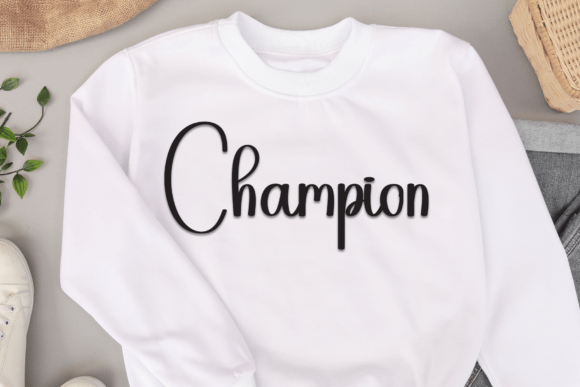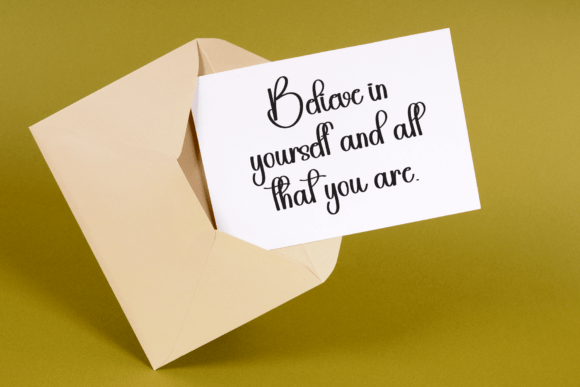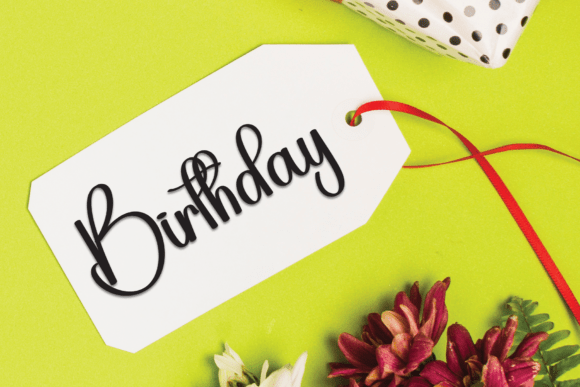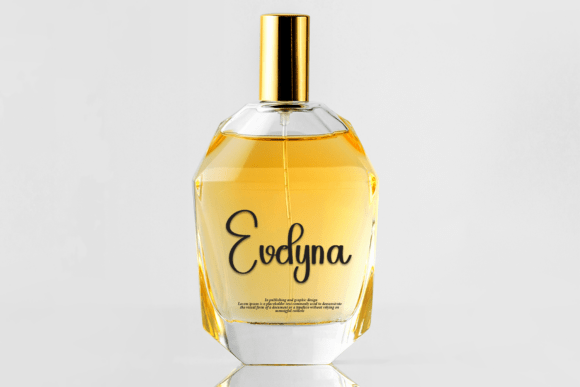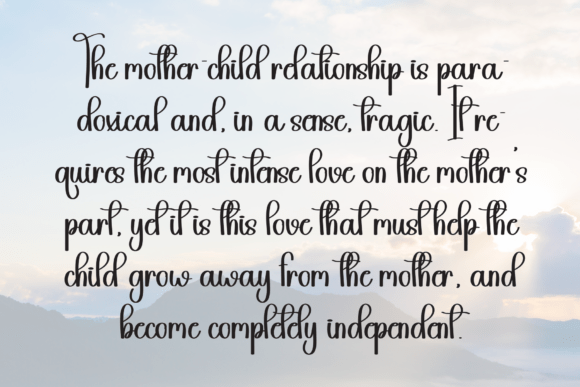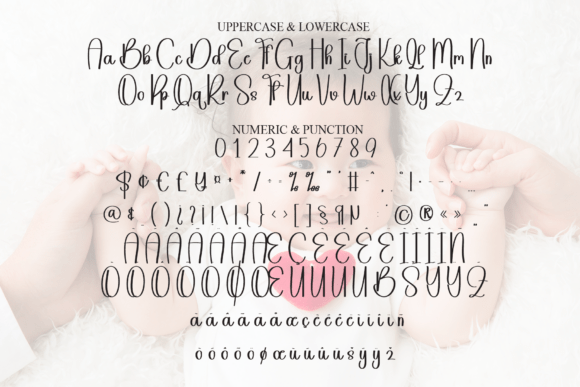
Babyday Font: Elevate Your Designs with Elegance and Modern Charm
In the world of typography, few fonts manage to strike a balance between elegance, modernity, and versatility. Babyday Font is one such exceptional typeface that has captured the hearts of designers and crafters alike. This stylish script font is not just a visual treat but a powerful tool for adding sophistication and personality to any design project.
The Essence of Babyday Font
Babyday Font is a masterpiece of modern calligraphy, blending the fluidity of hand-drawn scripts with the precision of digital typography. Its fluid strokes and graceful curves give it a natural, effortless look that is both captivating and charming. Each letterform is carefully crafted and balanced to ensure that the font exudes a sense of elegance and refinement.
What sets Babyday apart is its unique blend of traditional calligraphic elements with a contemporary edge. This fusion makes it an ideal choice for designers looking to add a touch of sophistication and modernity to their work. Whether you’re creating logos, invitations, packaging, or social media graphics, Babyday Font is sure to elevate your designs to new heights.
One of the key advantages of Babyday Font is its incredible versatility. Its natural flow and refined details make it suitable for a wide range of design applications. Here are just a few examples of how you can use Babyday to enhance your projects:
- Logos: Create memorable and stylish logos that stand out from the crowd. Babyday’s unique charm and elegance make it perfect for branding and identity designs.
- Invitations: Add a touch of sophistication and glamour to your invitations, whether it’s for a wedding, birthday party, or corporate event.
- Packaging: Elevate your product packaging with Babyday’s refined and elegant look. It’s an excellent way to make your products stand out on store shelves.
- Social Media Graphics: Create eye-catching social media graphics that reflect your brand’s personality and style. Babyday Font is perfect for crafting engaging and shareable content.
Why Choose Babyday Font?
With so many fonts available, why should you choose Babyday for your design projects? Here are a few compelling reasons:
- Elegance: Babyday Font exudes elegance and sophistication, making it perfect for designs that require a touch of refinement.
- Modernity: Its contemporary edge ensures that your designs look modern and up-to-date.
- Versatility: Use Babyday for a wide range of design applications, from logos and invitations to packaging and social media graphics.
- Visual Appeal: The font’s natural flow and refined details make it visually appealing and engaging.
Tips for Using Babyday Font Effectively
To get the most out of Babyday Font, here are a few tips to keep in mind:
- Pair it with contrasting fonts: Combine Babyday with sans-serif or serif fonts to create visual interest and hierarchy in your designs.
- Experiment with colors: Try out different colors and gradients to see how they interact with the font’s elegant curves and strokes.
- Pay attention to spacing: Make sure to adjust the spacing between letters and words to maintain a natural flow and balance.
Babyday Font is a stylish script font that offers a perfect blend of elegance, modernity, and versatility. Its fluid strokes, graceful curves, and carefully balanced letterforms make it an excellent choice for designers and crafters looking to add sophistication and personality to their work. Whether you’re creating logos, invitations, packaging, or social media graphics, Babyday Font is sure to elevate your designs and leave a lasting impression.